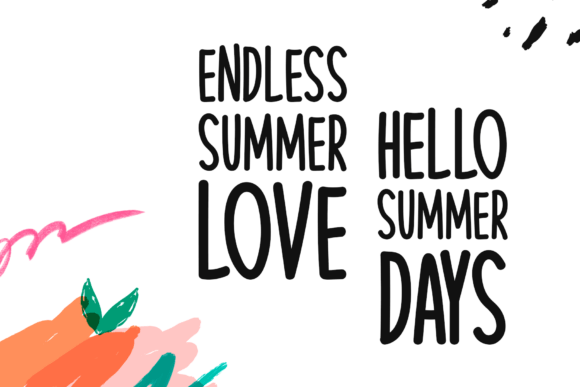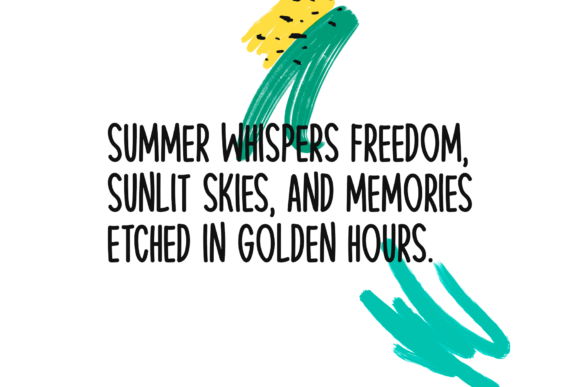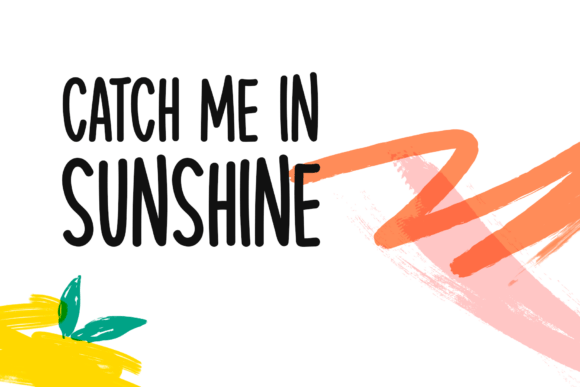
Introduction to Serene Summer Font
Serene Summer is a beautifully crafted handwritten typeface designed to elevate both print and digital creations.
Ideal for branding, apparel, promotional materials, and web design, it offers a distinctive elegance that enhances every project .
Serene Summer Font offers exceptional quality and versatility, making it a valuable addition to your design toolkit. Whether you’re creating for personal projects or commercial use, Serene Summer Font delivers professional results.